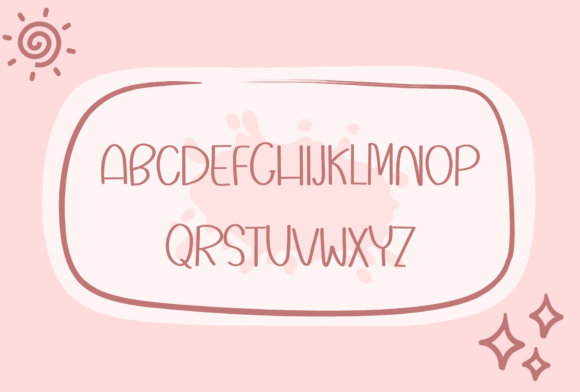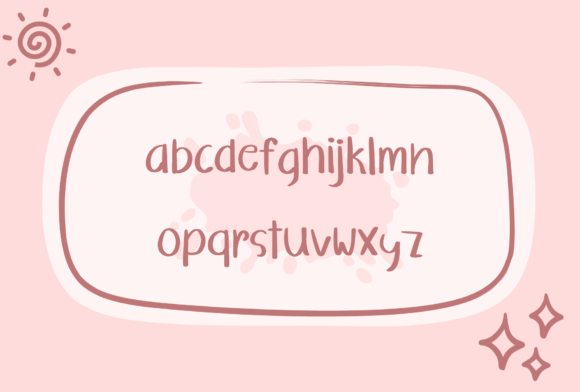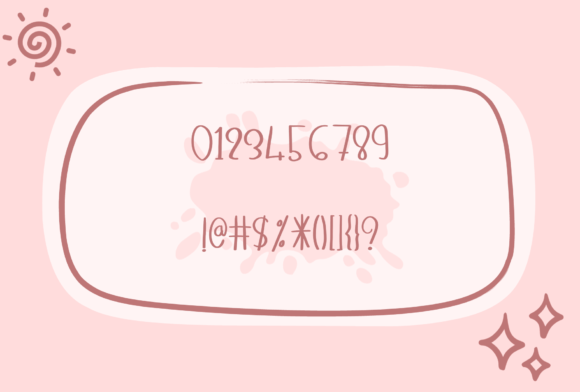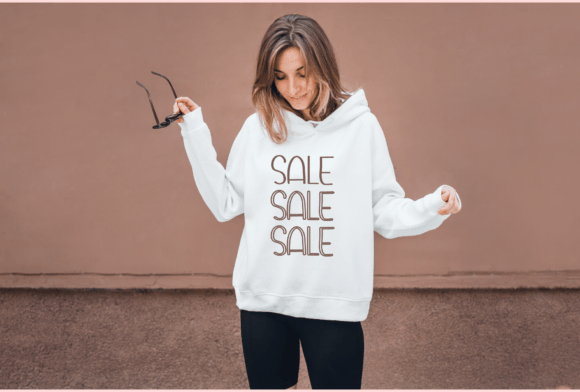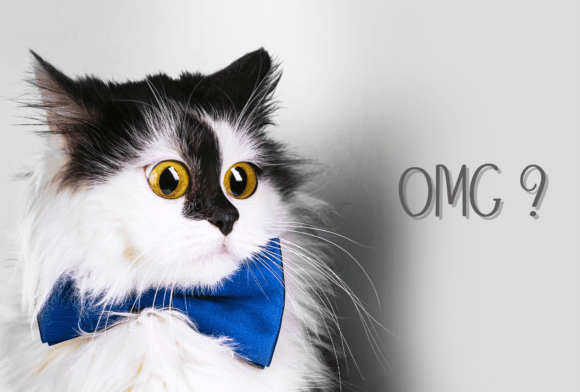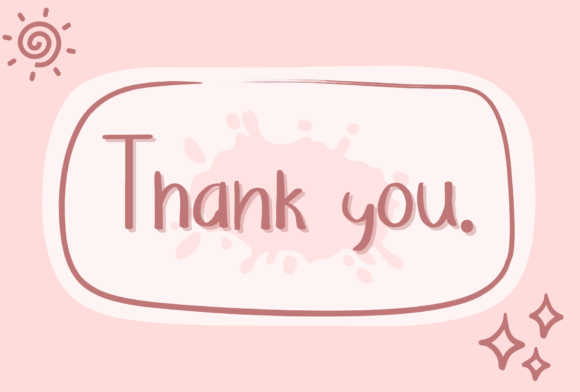
The Joy of Digital Cute Font: Elevating Designs with a Playful Touch
Have you ever been in the middle of a design project, and suddenly, it feels like something’s missing? You’re not quite sure what it is, but the design just doesn’t have that extra oomph you’re looking for. For me, that moment was when I was working on a children’s educational project. The content was engaging, the colors were vibrant, but it just felt… bland. That’s when I discovered the Digital Cute Font. It was like a ray of sunshine poured into my design, adding a playful and joyful touch that completely transformed the project.
An Honest Review: The Good and the Quirks
- ✨ Versatility: This font is incredibly versatile. It can be used for a wide range of design applications, from educational materials to advertising and illustrations.
- ✅ Readability: Despite its playful nature, the Digital Cute Font remains highly readable, even at smaller sizes.
- 🎉 Fun and Engagement: It adds a fun and engaging element to any design, making it perfect for projects aimed at younger audiences or for anyone looking to add a bit of whimsy to their work.
⚠️ While the Digital Cute Font is amazing for many projects, it’s worth noting that it might not be the best choice for very formal or corporate designs. Its playful nature might not align with the tone you’re trying to convey in such cases. Also, some of the more intricate details might not render as well at very small sizes or on certain devices.
🤔 Another thing to consider is that, like any font, it’s essential to use it thoughtfully. Overuse can dilute its impact, so it’s best to use it where it can shine, such as in headings or focal points of your design.
One of the exciting aspects of the Digital Cute Font is its support for OpenType features. This means you can access a variety of glyphs and stylistic alternates to further customize your text. For example, you might find alternative letterforms, swashes, or even cute illustrations integrated into the font. To access these features:
The Designer Inspiration Behind Digital Cute Font
The Digital Cute Font was inspired by the joy of childhood illustrations and the simplicity of digital design. The designer aimed to create a font that captures the whimsy and playfulness of childhood, making it perfect for projects that aim to engage and delight younger audiences. The font’s clean lines and cute embellishments are designed to bring a smile to the viewer’s face.
The Digital Cute Font is more than just a typeface; it’s a design element that can transform your projects with its playful and charming personality. Whether you’re a designer, crafter, or hobbyist, this font offers a simple yet effective way to add joy and engagement to your work. So, go ahead and let your creativity shine with the Digital Cute Font!